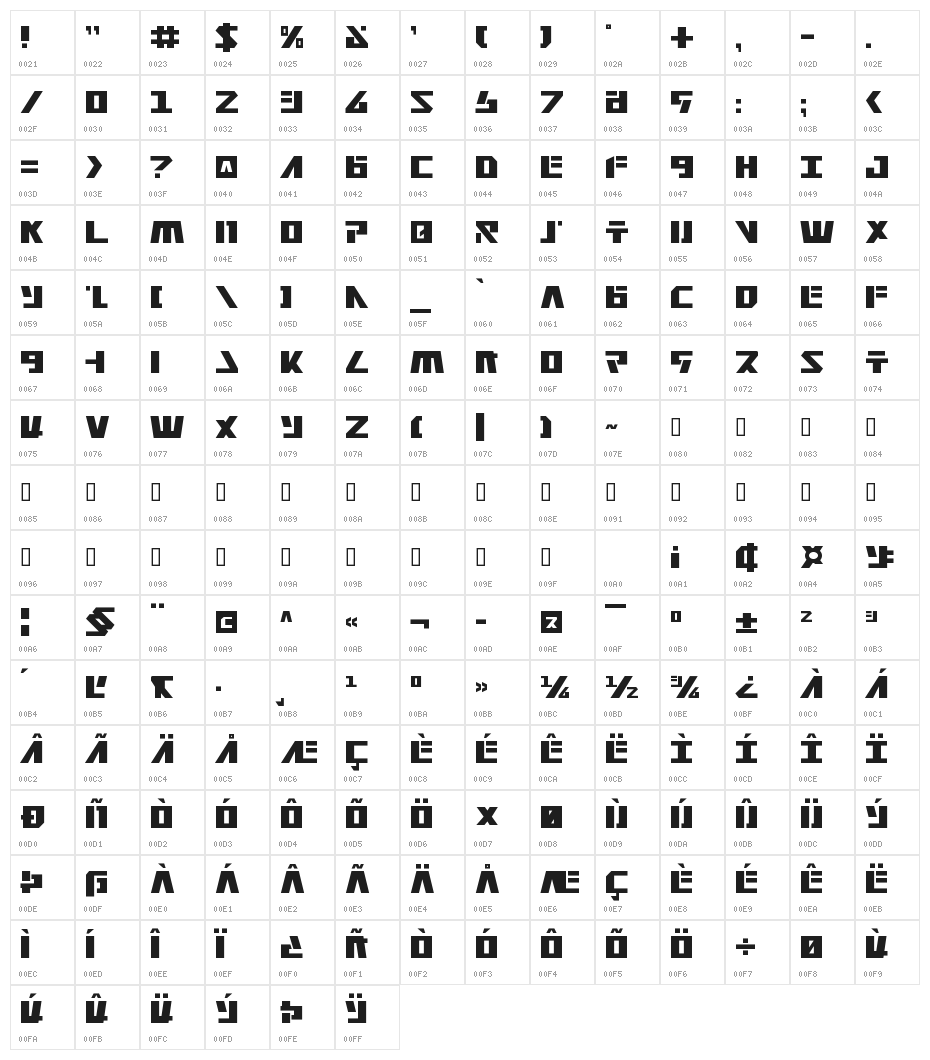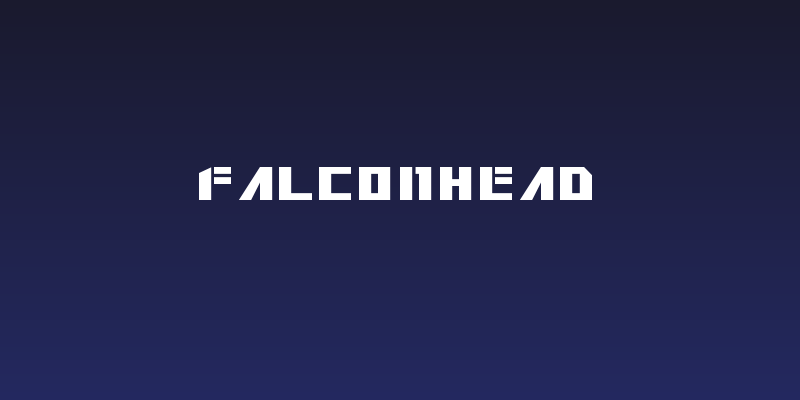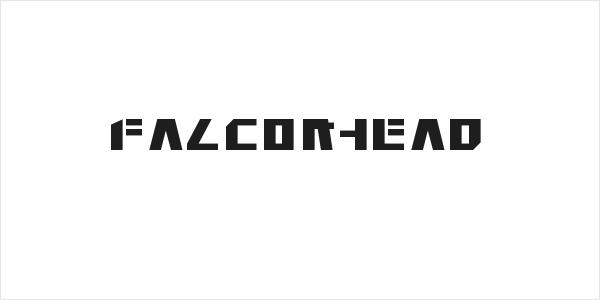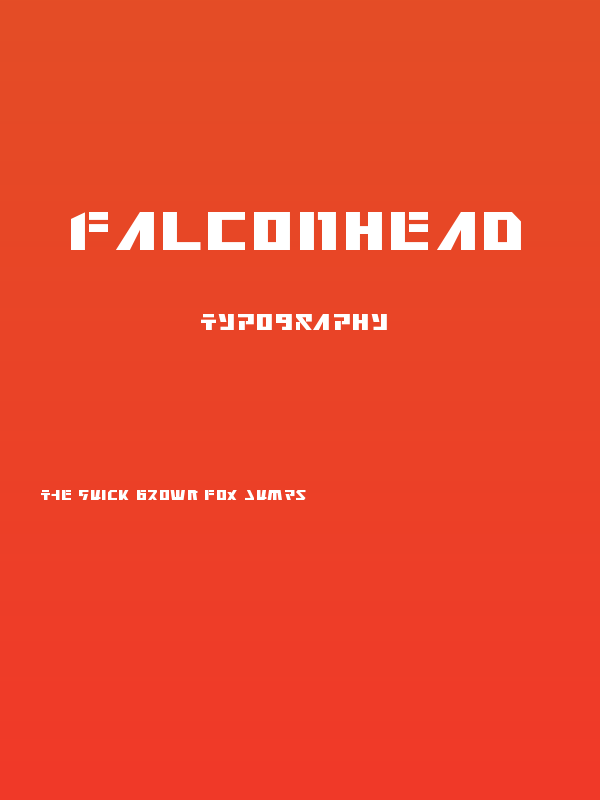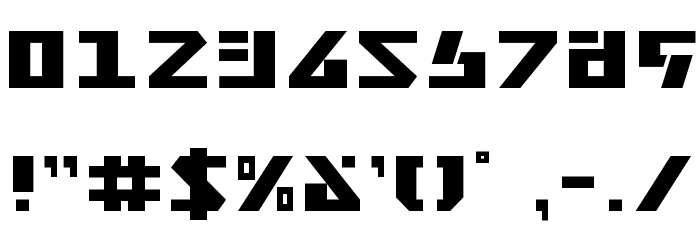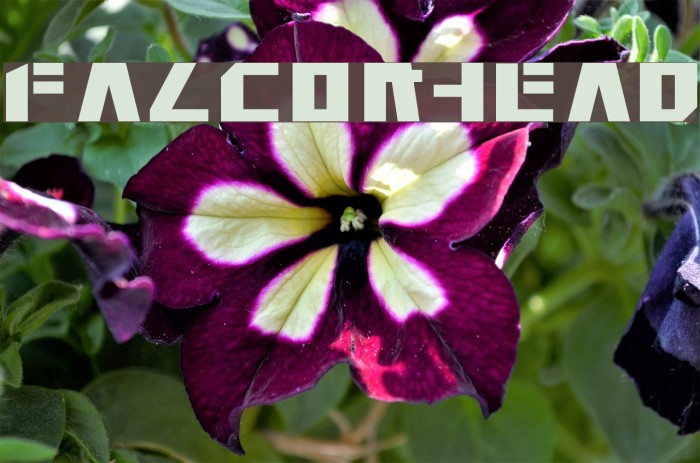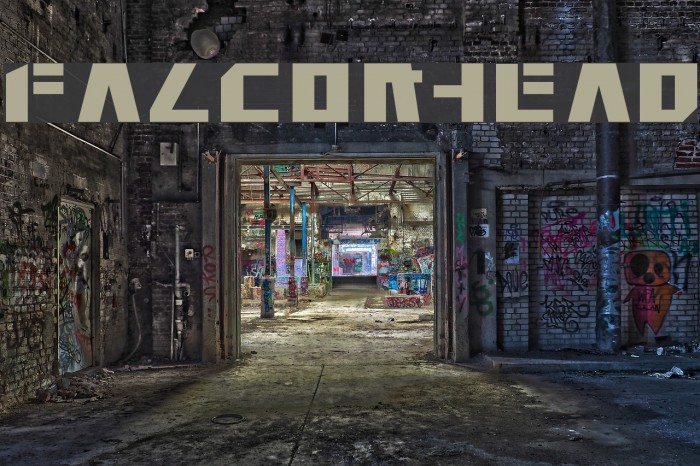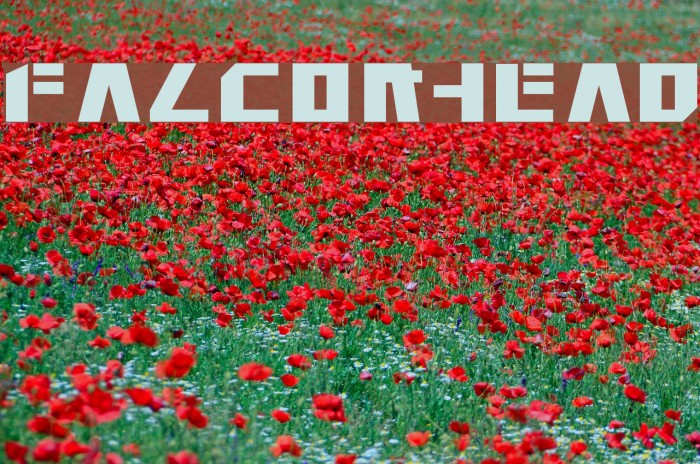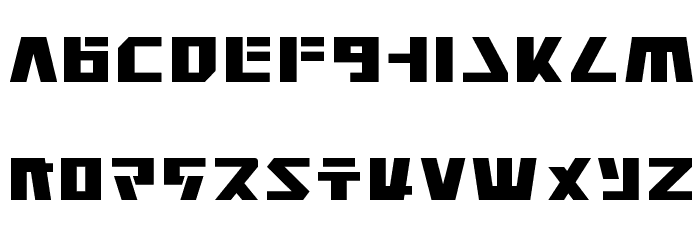
Falconhead Font
Falconhead Description
This font features a bold, geometric design with a futuristic and angular aesthetic. The characters are constructed with sharp edges and straight lines, giving them a distinct, mechanical appearance. The uppercase and lowercase letters share a similar structure, maintaining consistency across the alphabet. Numbers and special characters are designed with the same angular style, ensuring uniformity throughout. The font's unique style makes it stand out, ideal for projects that require a modern and edgy look.
| Overall Style | Futuristic |
| Proposed Projects | Ideal for sci-fi themed projects, video game titles, tech branding, and futuristic posters. |